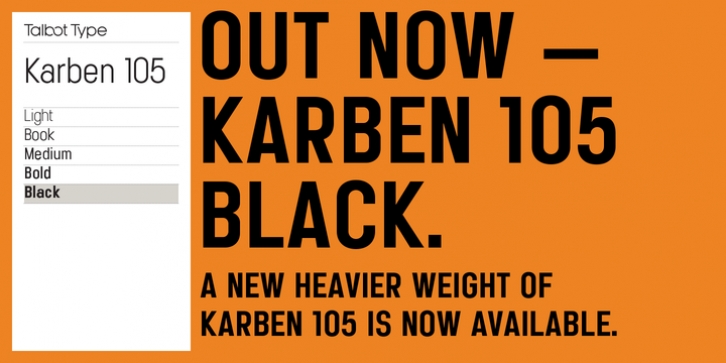
Karben 105 downloadDesigner: Adrian Talbot
Publisher: Talbot Type
Karben 105 is inspired by the classic, no nonsense DIN, and has a form that follows its highly legible function. Based on a lozenge, it has a clean and pure geometry with even stroke weights. Karben 105 is available in four weights, and is also available with character variations as Karben 205.
There are also monospaced variants of both Karben 105 and Karben 205.